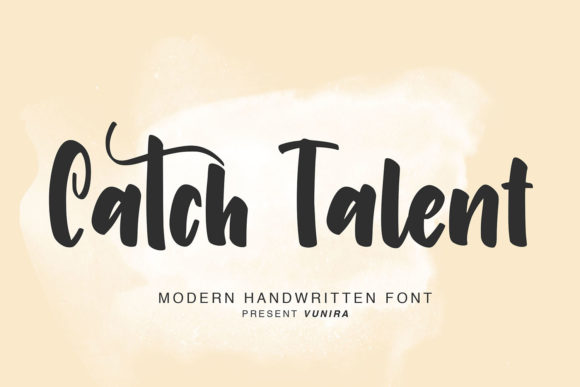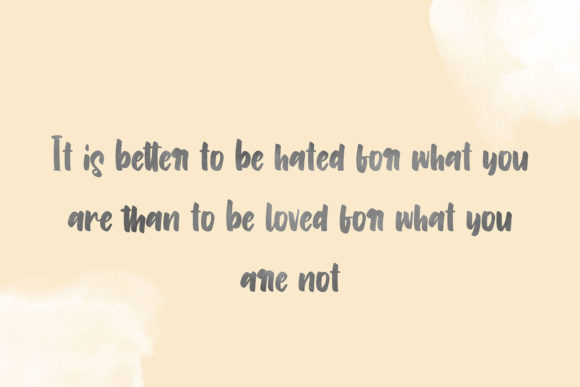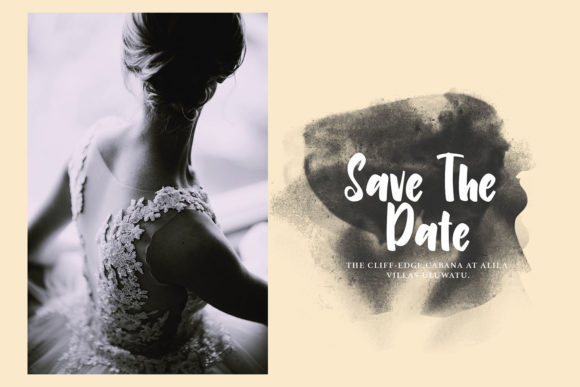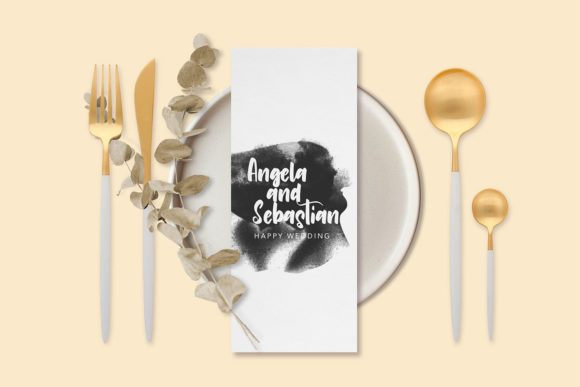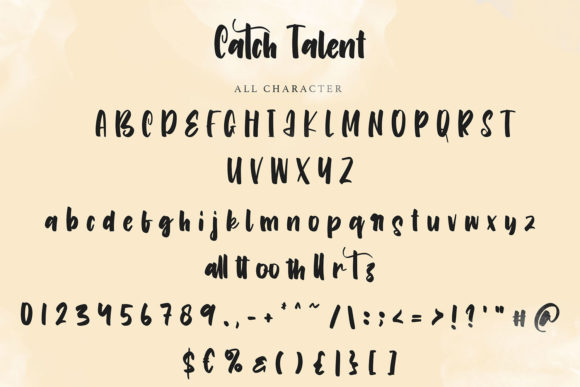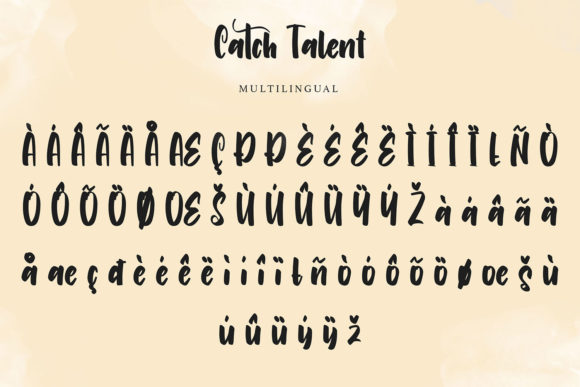
About Catch Talent Font
Catch Talent is a sweet and friendly handwritten font. Its natural and unique style makes it incredibly fitting to a large pool of designs. The only limit is your imagination!